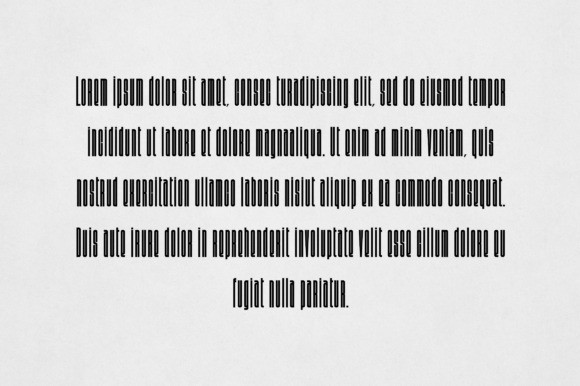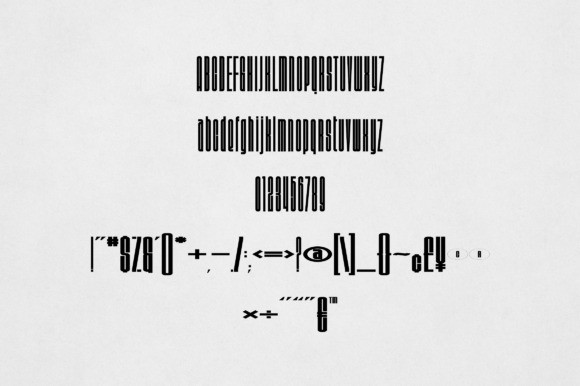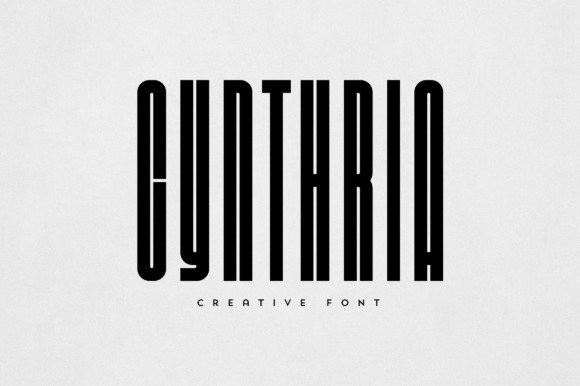
Cynthria Font
Cynthria Font is an elegant and versatile display font that will make your typography truly unique! It will enchant every logo, branding, headline, or plain text!